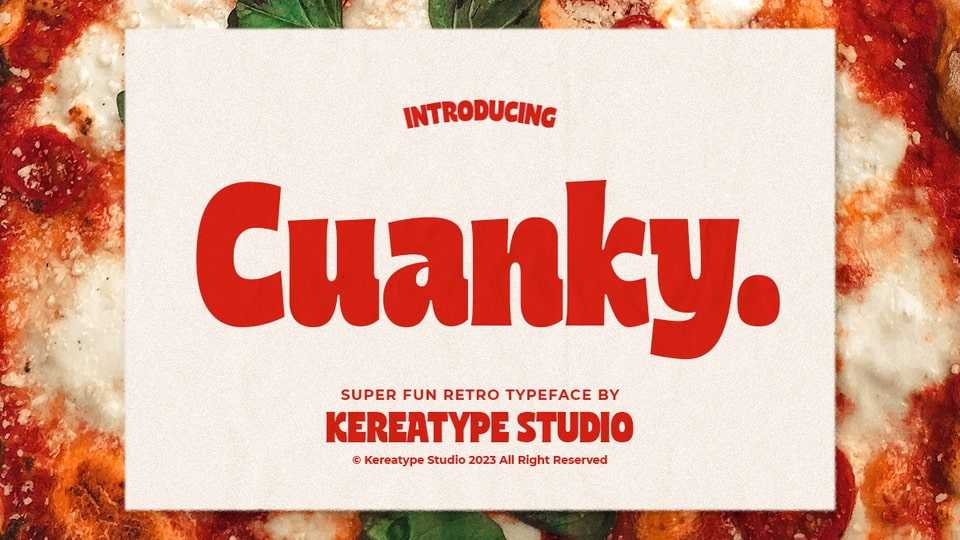
Download Cuanky font, a super fun, retro-style sans serif typeface with subtle serifs. It possesses a recognizable flair and evokes a sense of warm nostalgia.
Designer: Kereatype Studio